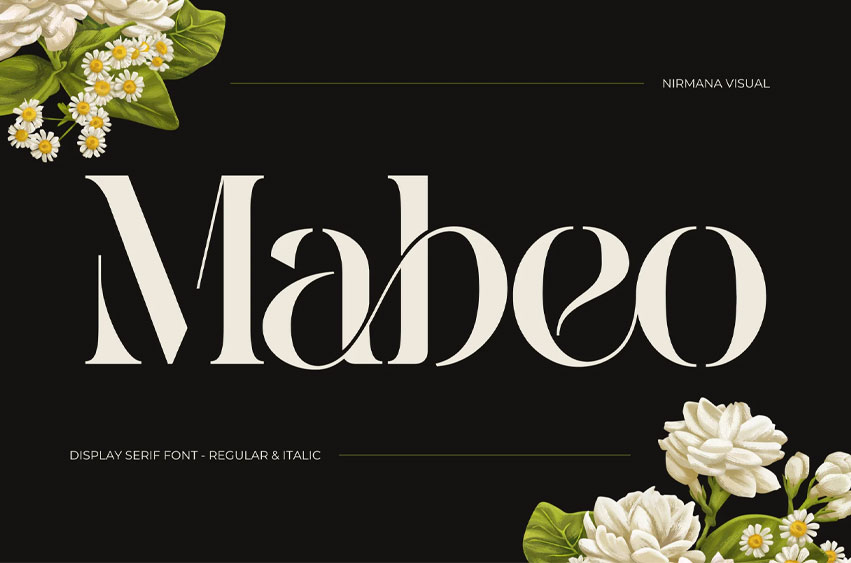
Mabeo Font
Mabeo Font Vintage offers beautiful typographic harmony for a diversity of design projects, including logos & branding, social media posts, advertisements & product designs.